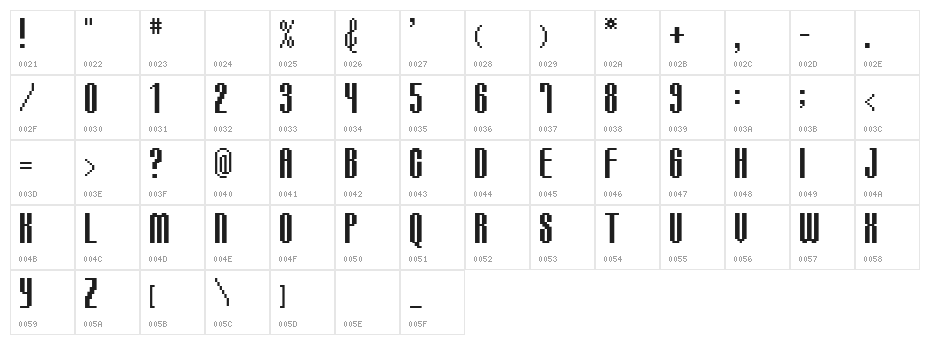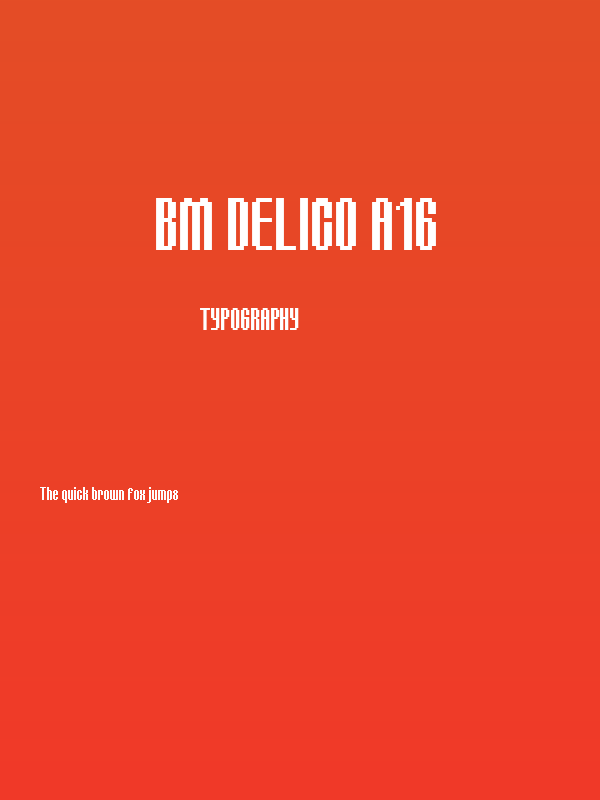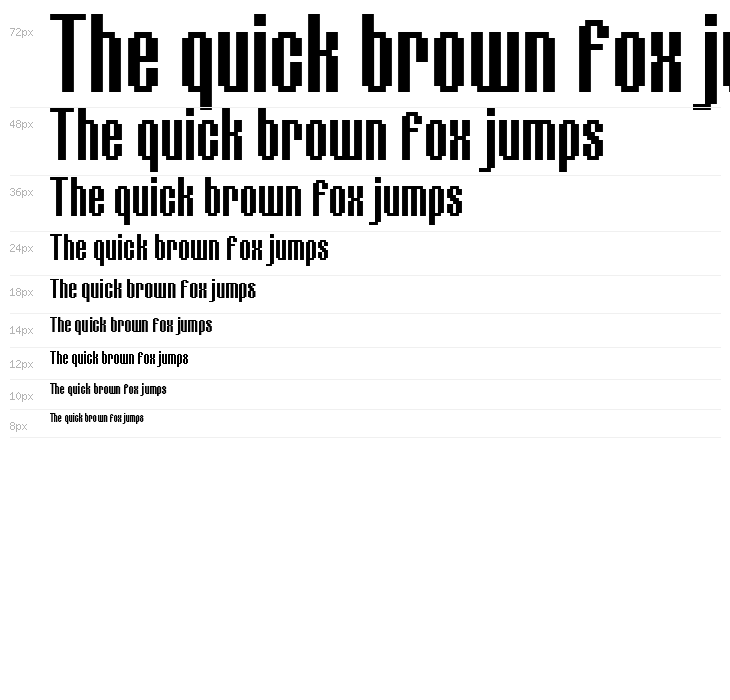
BM delico A16 Font
BM delico A16 Description
This font features a bold, geometric design with a strong presence. The characters are tall and narrow, with a consistent stroke width that gives it a monospaced appearance. The uppercase letters are particularly striking, with sharp angles and a blocky aesthetic that conveys a sense of modernity and strength. The lowercase letters maintain the same geometric style, ensuring uniformity across text. Numerals and special characters are designed to match the overall style, making this font suitable for a variety of applications where a bold, impactful look is desired.
| Use Case | Headlines, Logos, Digital Displays |
| Proposed Projects | Ideal for use in digital displays, video game graphics, posters, and branding materials that require a strong, modern look. |